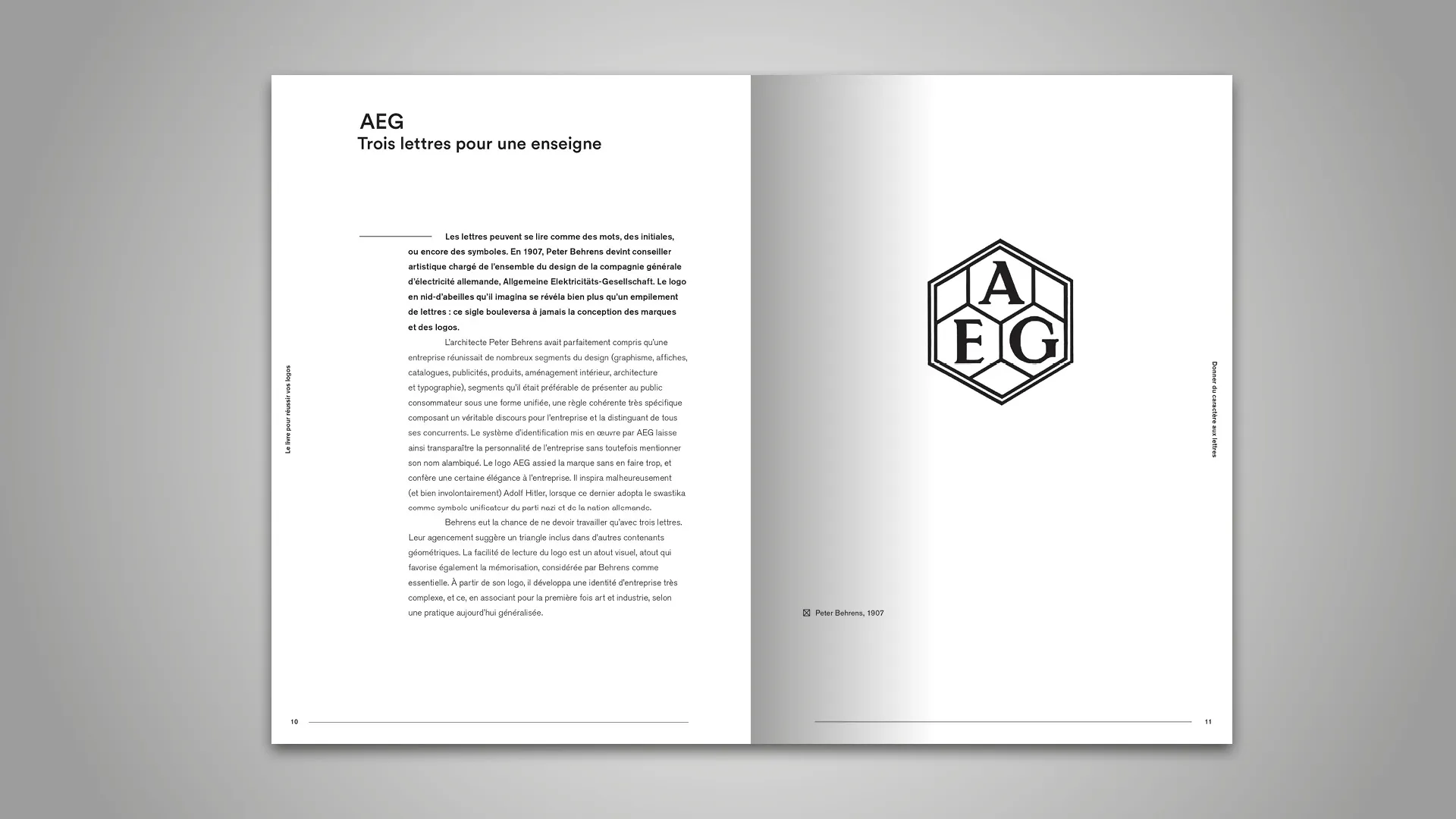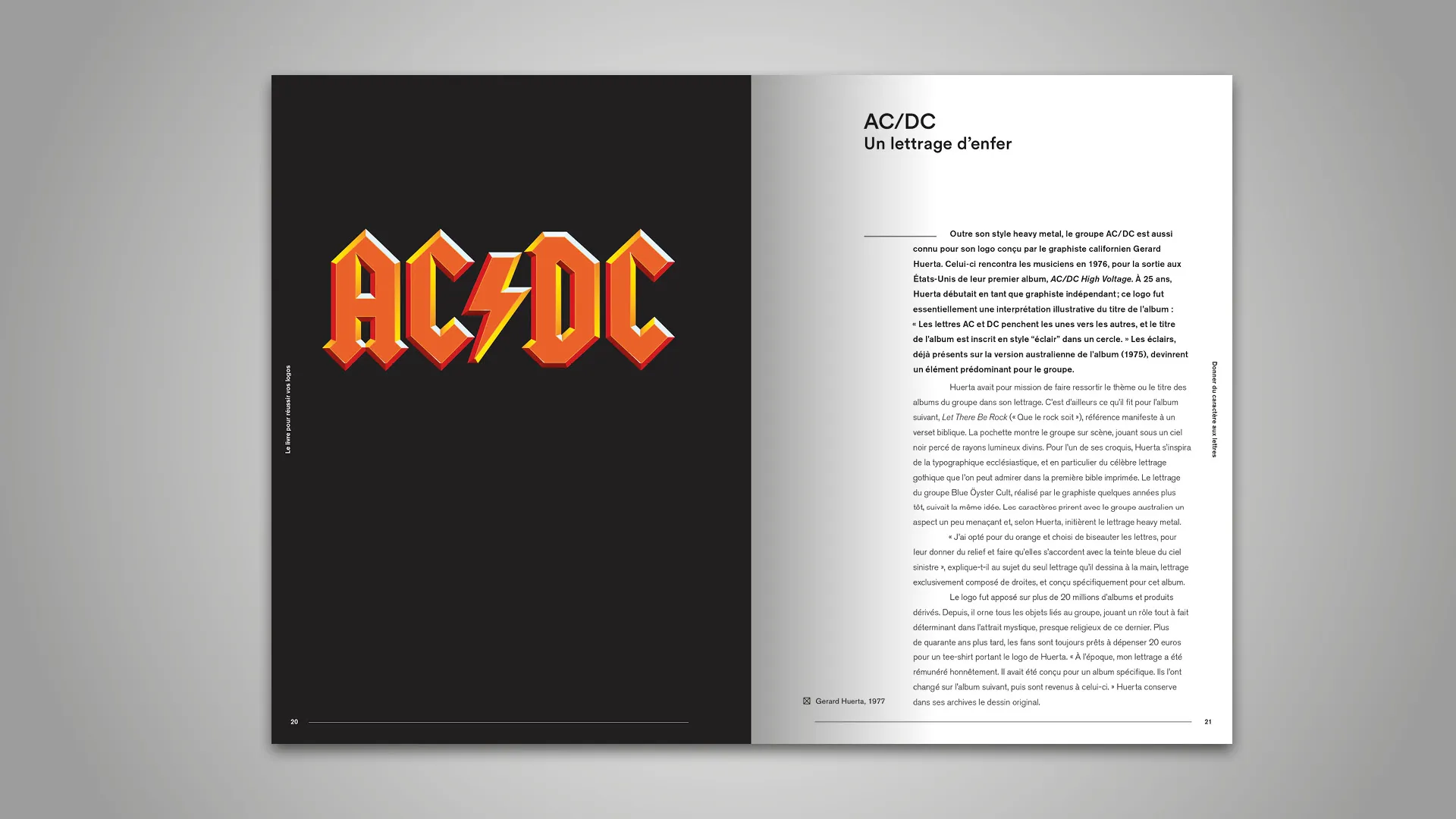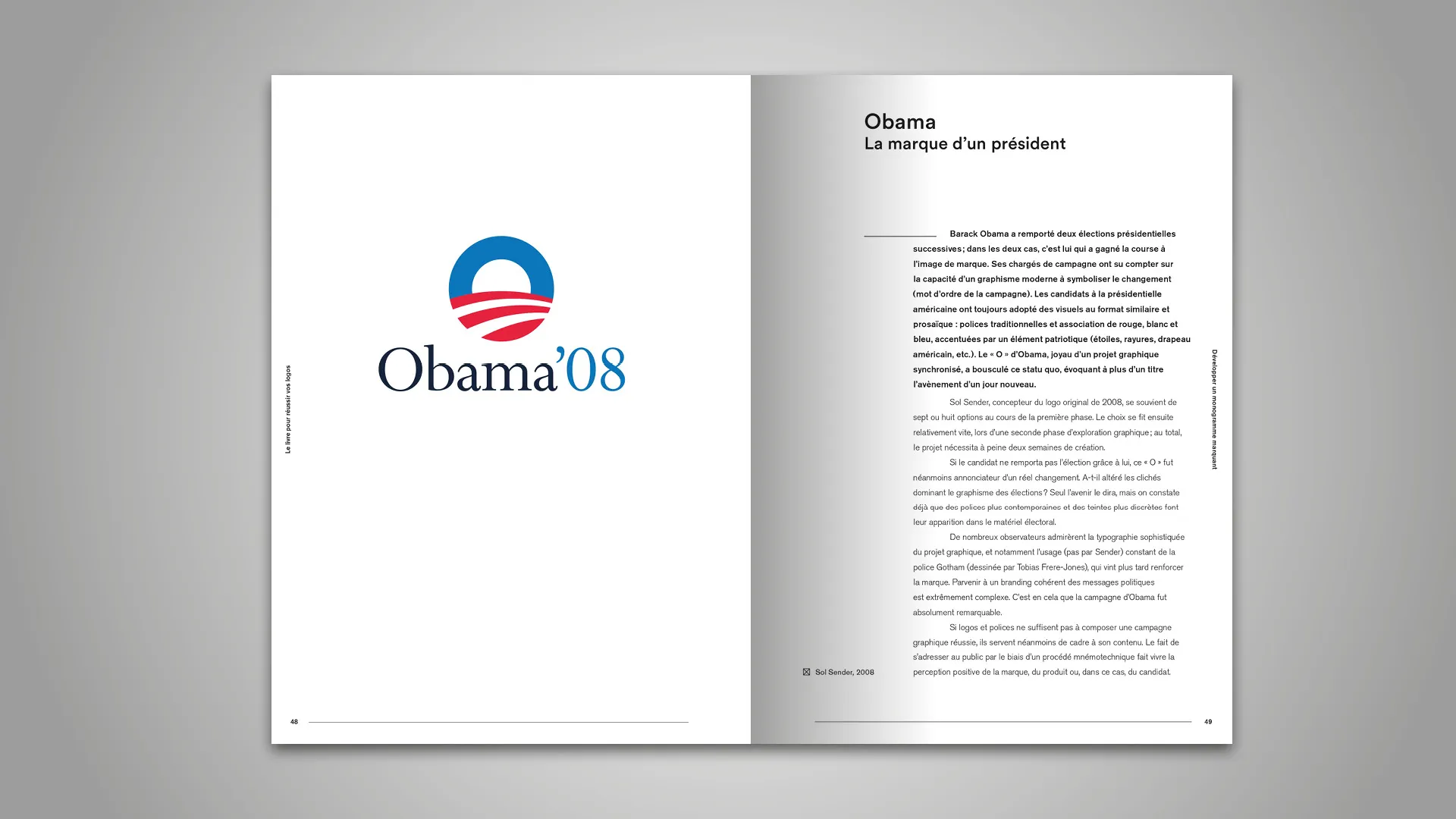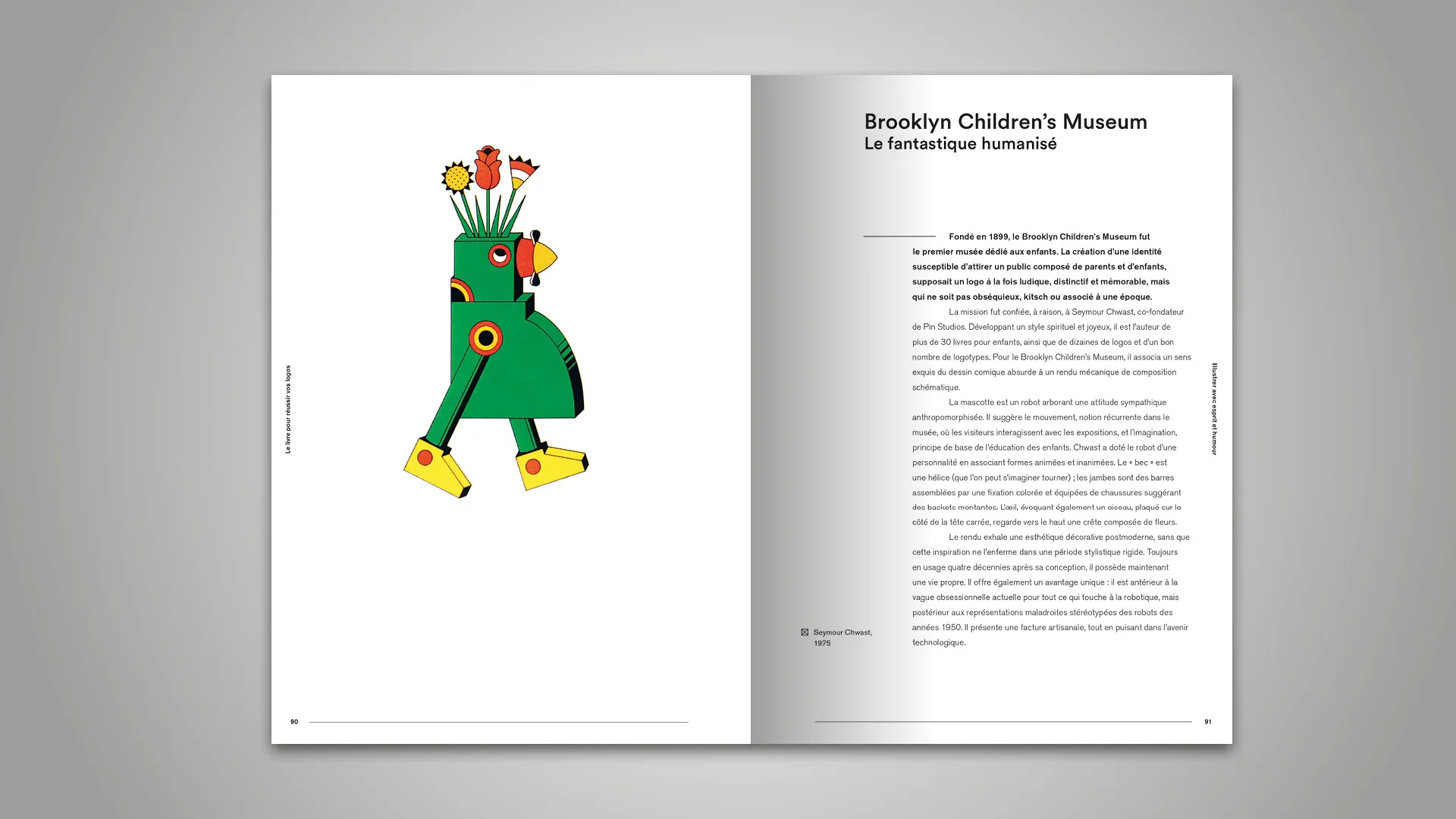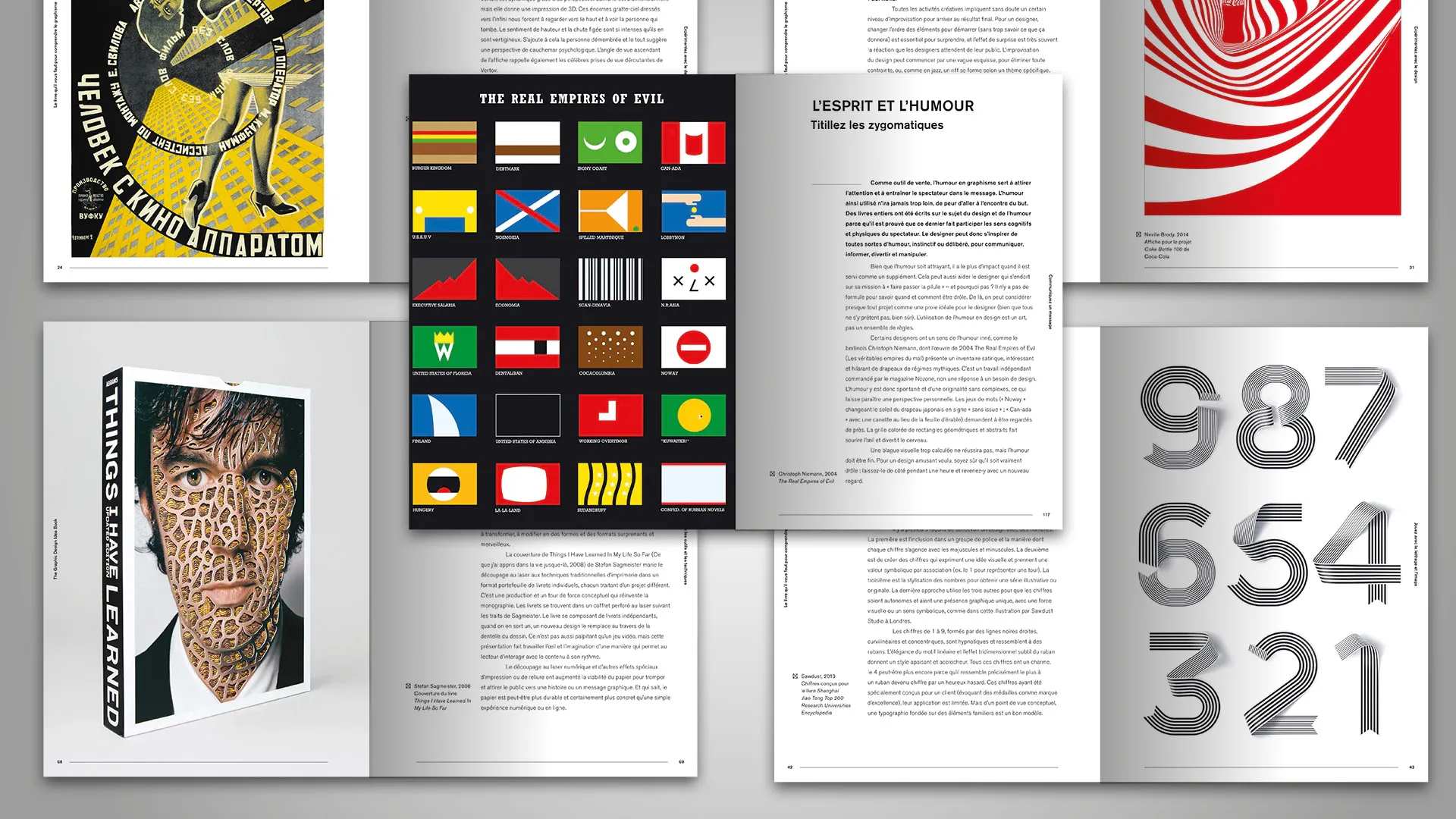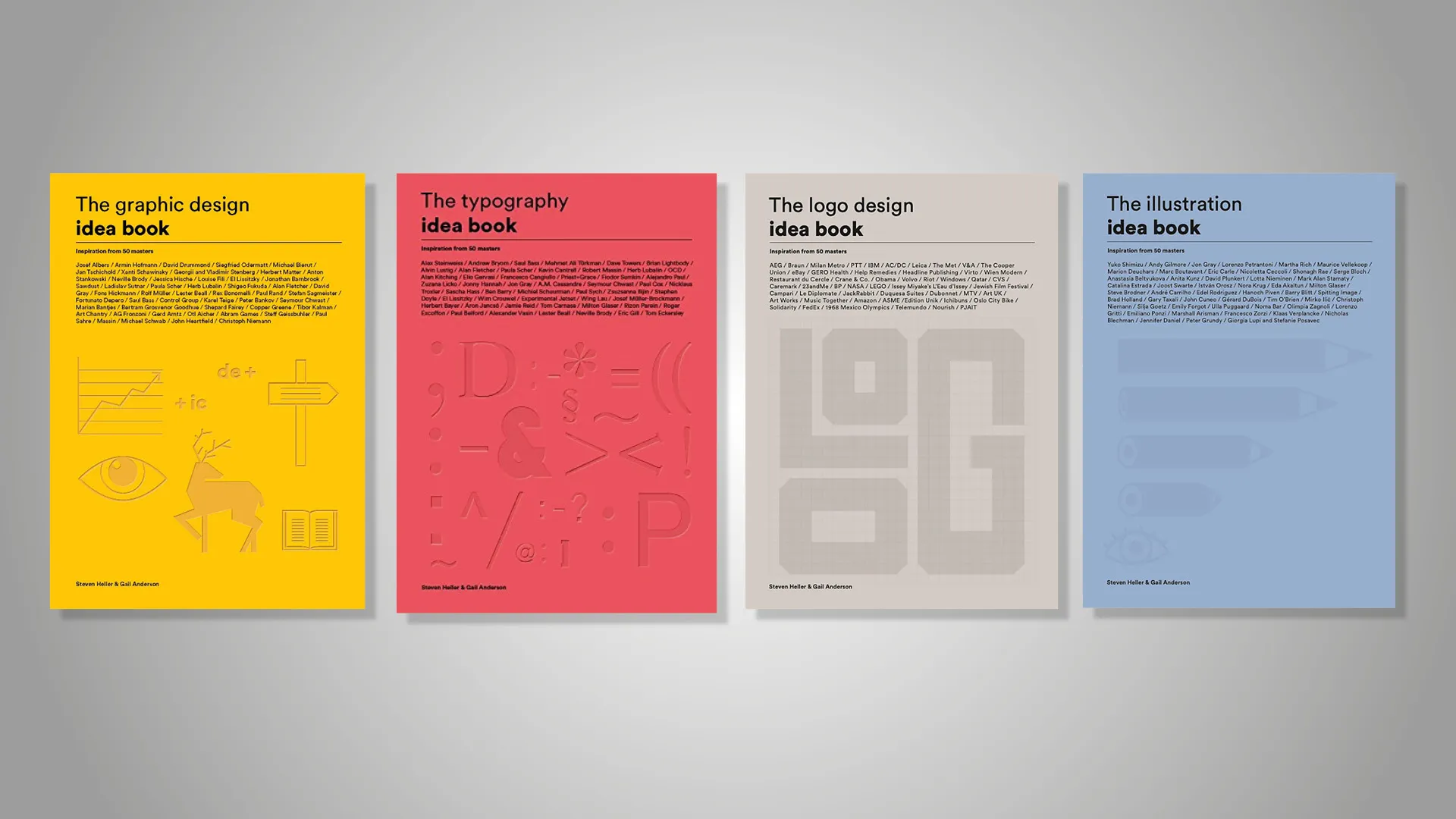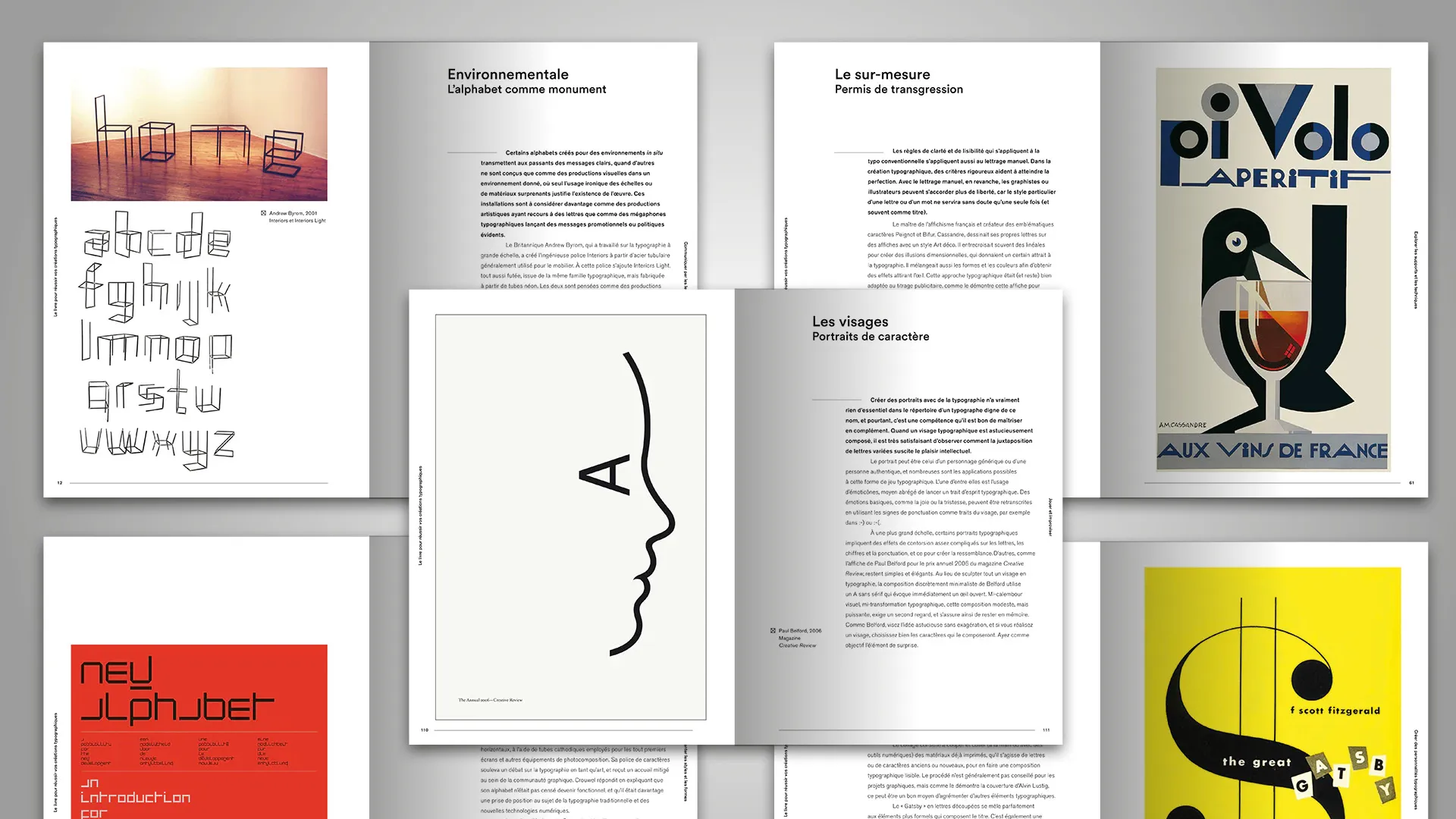
Idea Book Serie
Idea book serie
by Gail Anderson & Steven Heller
Steven Heller has been known for decades as one of the most prolific authors in international graphic publishing. I've even heard of fellow authors making fun of his writing speed, referring to the time it takes to write an e-mail to achieve a full-length book.
While one can criticize the depth of his books, which are often limited to collections of old graphic documents, he remains one of the specialists with indispensable books to his credit, such as the monograph devoted to Paul Rand, or best sellers such as From Merz to Emigré (a history of twentieth-century satirical or avant-garde magazines) or Iron Fists (devoted to the identity design of dictatorships).
Steven Heller's strength lies in his ability to understand the needs of a readership and to conjure up his encyclopedic knowledge to make it accessible and from an angle rarely approached before. Thus, he has teamed up with designer and educator Gail Anderson to develop a series of four books addressing the main principles of graphic design sub-disciplines through the rapid study of 50 exemplary cases: the use of typography, graphic design, logo creation, as well as illustration (not yet available in French).
For The typography Idea book, over the course of 7 thematic chapters, then on each double-page spread, the authors present and then dissect a poster, layout or record sleeve playing with typography in a sensible and creative way. Full-page illustrations confront the text, which is limited to around thirty lines. The historical context of creation is quickly outlined, as is the technical aspect that makes this rendering possible. Each chapter logically groups the creations to provide an overview of all the functions specific to the field. For example, typography is discussed in terms of its communicative purpose, personality or historical connotations, techniques and media, mystery and illusion, formal experimentation, or playfulness.
Some double spread pages from the Logo book.
Each entry is display in a full page, while the text analysing the picture is on the opposite page.
The format, like the layout, focuses on ease of access and transparency: here, there are no stylistic effects other than the examples shown. The quest for neutrality in design highlights the visual content, and each of the book covers in the series is distinguished by an effective color code.
The examples are drawn as much from the historical heritage as from the contemporary creations of the younger generation, thus providing a wealth of examples capable of laying the foundations of a graphic culture for the reader. As a result, the relevance of the works is more appropriate for a graphic design student looking for an introduction to the discipline without delving into serious textbooks, or leafing through collections of creations encouraging superficial appropriation of style.
The typography idea book
Anderson & Heller position themselves more as passers-by, narrating in writing what could be conveyed on the corner of a desk to a student a little lost in the immensity of creative possibilities. It's perhaps a pity that each of the entries doesn't extend via a few recommendations for printed or online reading, enabling the novice to progress towards a richer, more personal vision of the discipline.
More than a must-have, this series of books is recommended for art school, university or public library libraries, where consultation is sufficient and purchase is reserved for gifts.
The graphic design idea book.
Idea Serie: Typography, Graphic design, Illustration, Logo design
Gail Anderson & Steven Heller
Published in English by Laurence King, in French by Pyramyd